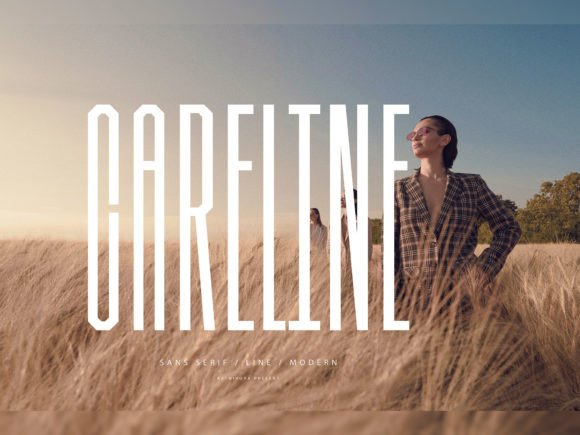
Introducing Careline Font - The Epitome of Simplicity and Authenticity in Sans Serif Typography
In the realm of digital art and design, where creativity knows no bounds, Careline Font emerges as a beacon of simplicity and authenticity. This meticulously crafted sans serif font, the brainchild of artnivora.std, embodies the essence of minimalism, offering a refreshing departure from the often-cluttered world of typography.
With its clean lines, unassuming demeanor, and unwavering focus on legibility, Careline Font exudes an air of sophistication that is both timeless and contemporary. Its understated beauty belies a versatility that makes it an ideal choice for a wide range of applications, from bold logos and captivating social media posts to elegant brochures and engaging magazines.
Step into a world where simplicity reigns supreme, where every letterform is a testament to the enduring power of clarity. Careline Font beckons you to explore the boundless possibilities of minimalist design, inviting you to create visual masterpieces that resonate with authenticity and leave a lasting impression.
1. Simplicity Unparalleled: Careline Font embraces the beauty of minimalism, allowing your designs to breathe and your message to shine through. Its clean lines and uncluttered letterforms ensure effortless readability, making it perfect for designs that demand clarity and impact.
2. Versatility at Its Finest: From the sleek lines of a modern logo to the vibrant energy of social media graphics, Careline Font adapts seamlessly to a myriad of design projects. Its inherent versatility makes it the perfect companion for designers seeking a font that can effortlessly elevate any concept.
3. Timeless Elegance: Careline Font transcends fleeting trends and fads, embodying a timeless elegance that will endure for years to come. Its classic sans serif design ensures that your designs remain relevant and visually appealing, regardless of the ever-changing tides of design aesthetics.
4. A Font for Every Occasion: Whether you're crafting a professional brochure, designing an eye-catching magazine layout, or simply adding a touch of sophistication to your social media presence, Careline Font rises to the occasion. Its versatility knows no bounds, making it a font you'll reach for time and time again.